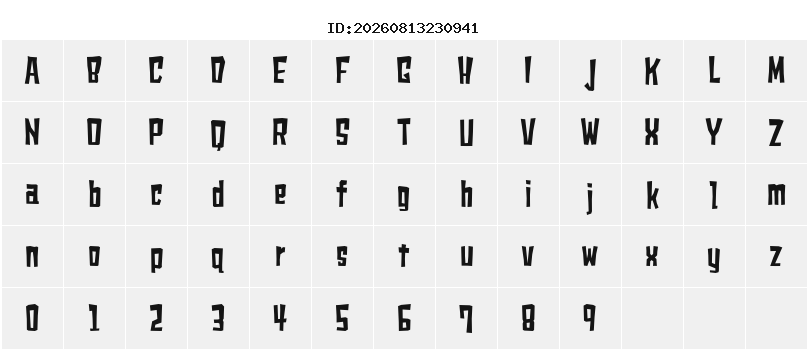
shears Preview
• Font Name: shears
• Designer: ks (sugargliderz)
• Description: Long ago, it was a made font. What was sleeping in the hard disk was wake up. Paper is being cut into the shape of the character with shears.
About shears.otf
shears.otf is a modern, elegant sans-serif font designed for ultimate readability and visual harmony. Perfect for branding, headlines, web design, and print materials.